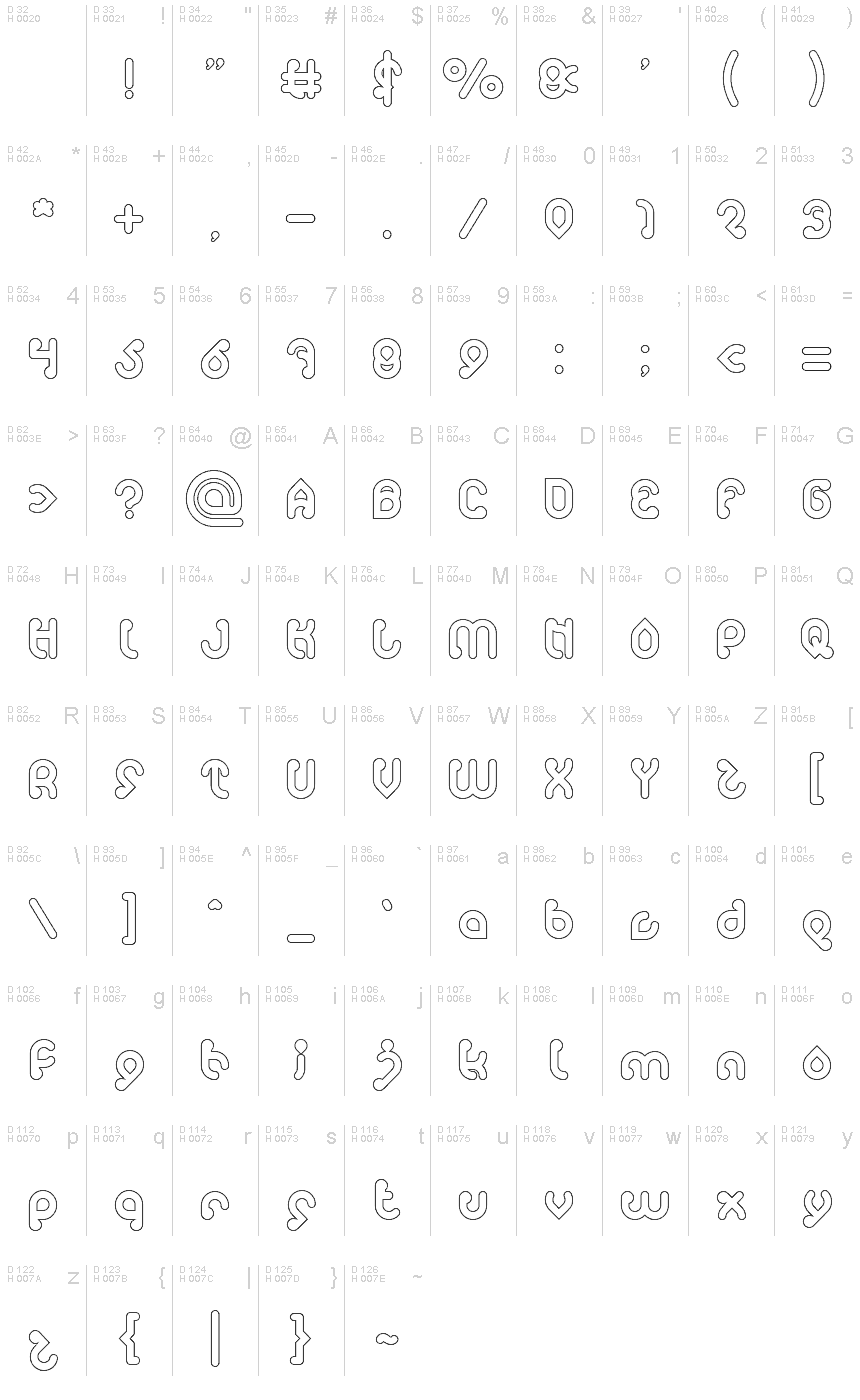
monica-Hollow
Monica Hollow is a captivating display font that exudes a delightfully groovy and outlined aesthetic. Designed by Weknow, this font family boasts a distinctive personality, with its hollow, elongated letterforms creating a bold, attention-grabbing visual. The font's versatile style lends itself well to a variety of design applications, from eye-catching headlines and logos to playful branding and packaging. Its unique outline treatment adds depth and dimension, elevating the overall impact of any design.
Whether used for its striking visual appeal or its ability to convey a retro-inspired vibe, "Monica Hollow" is a font that is sure to make a lasting impression.